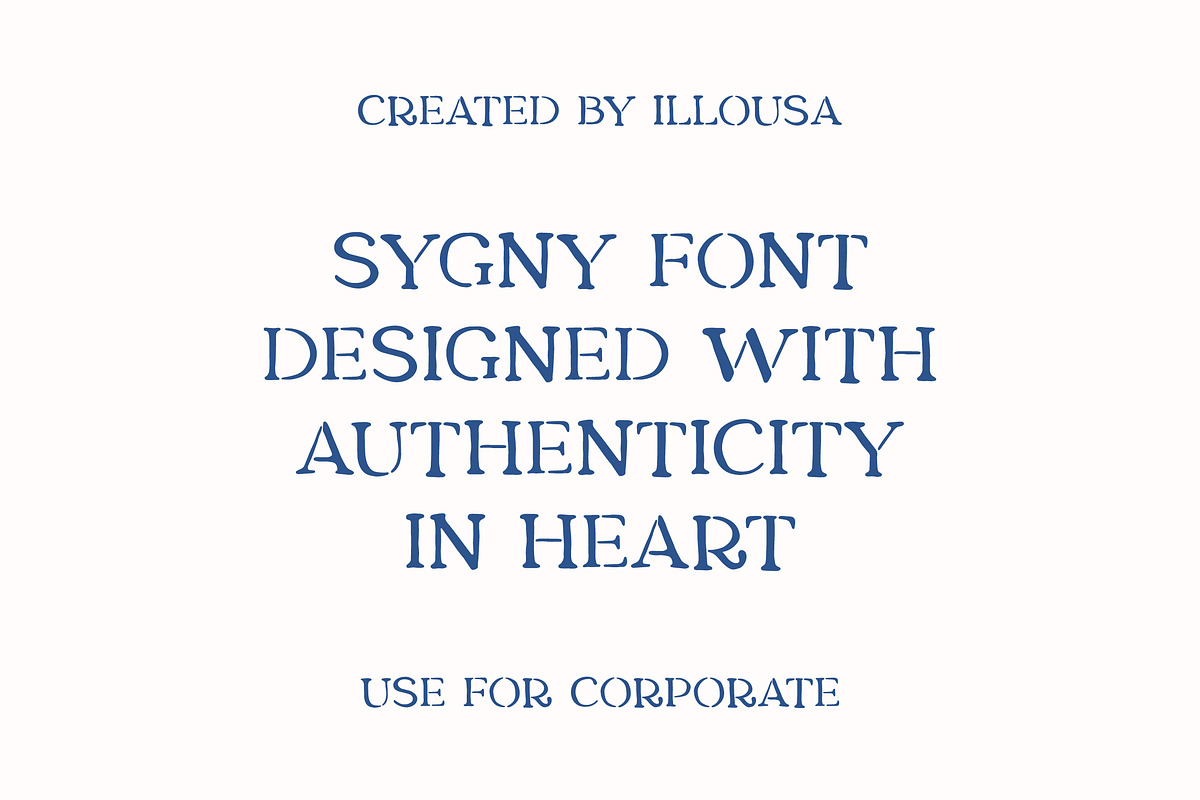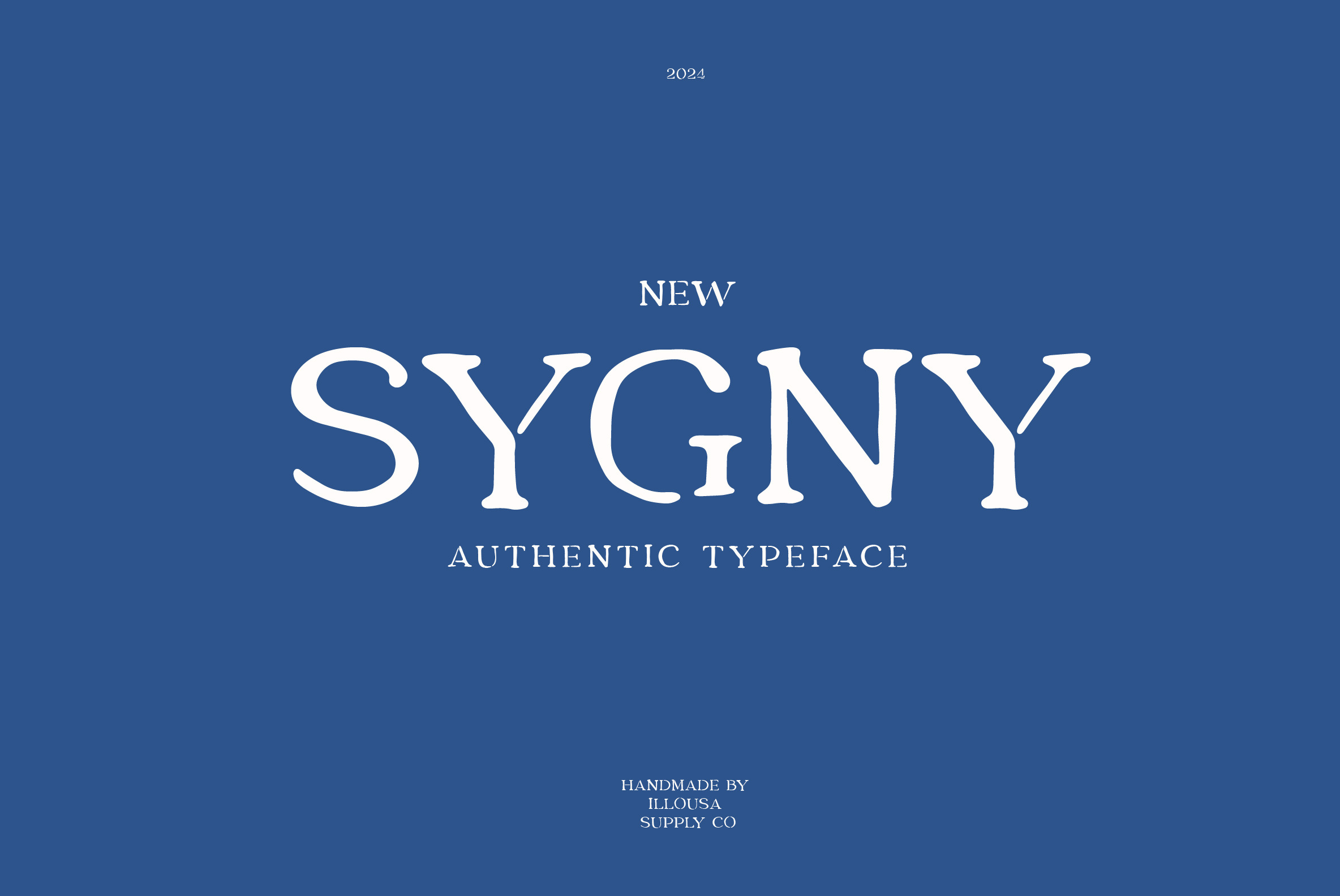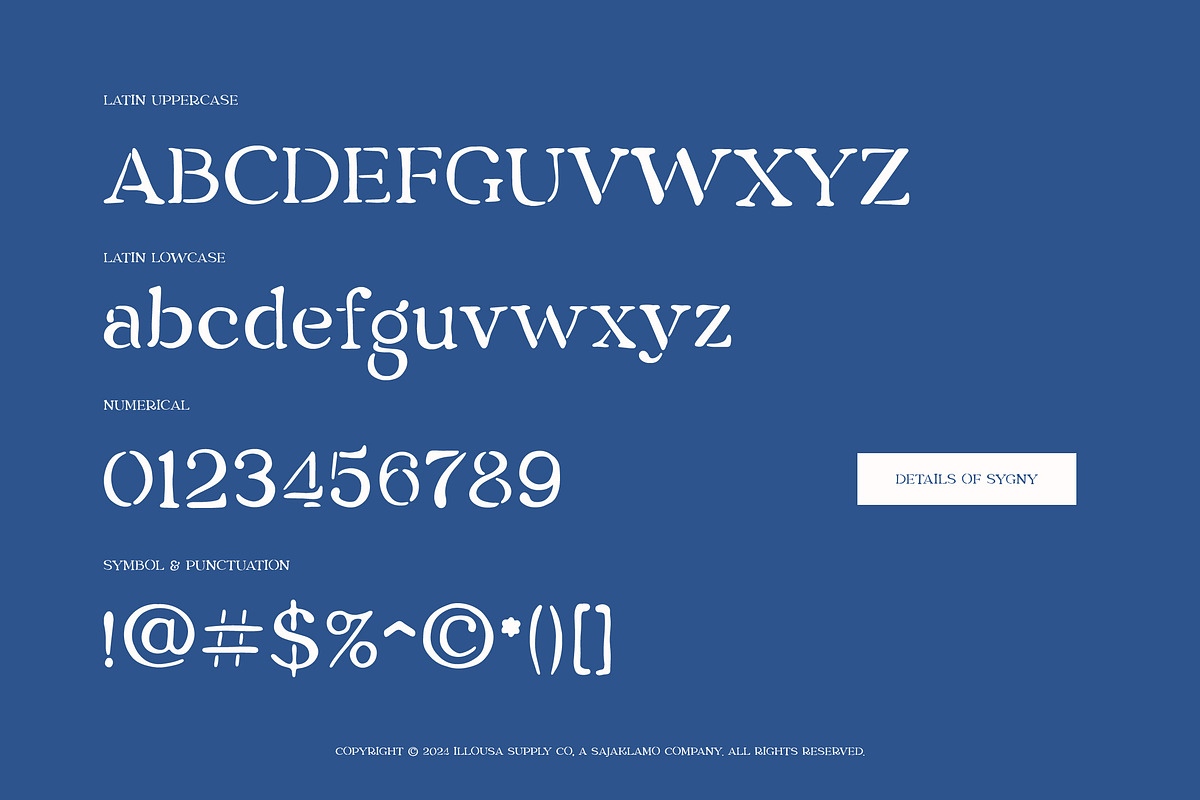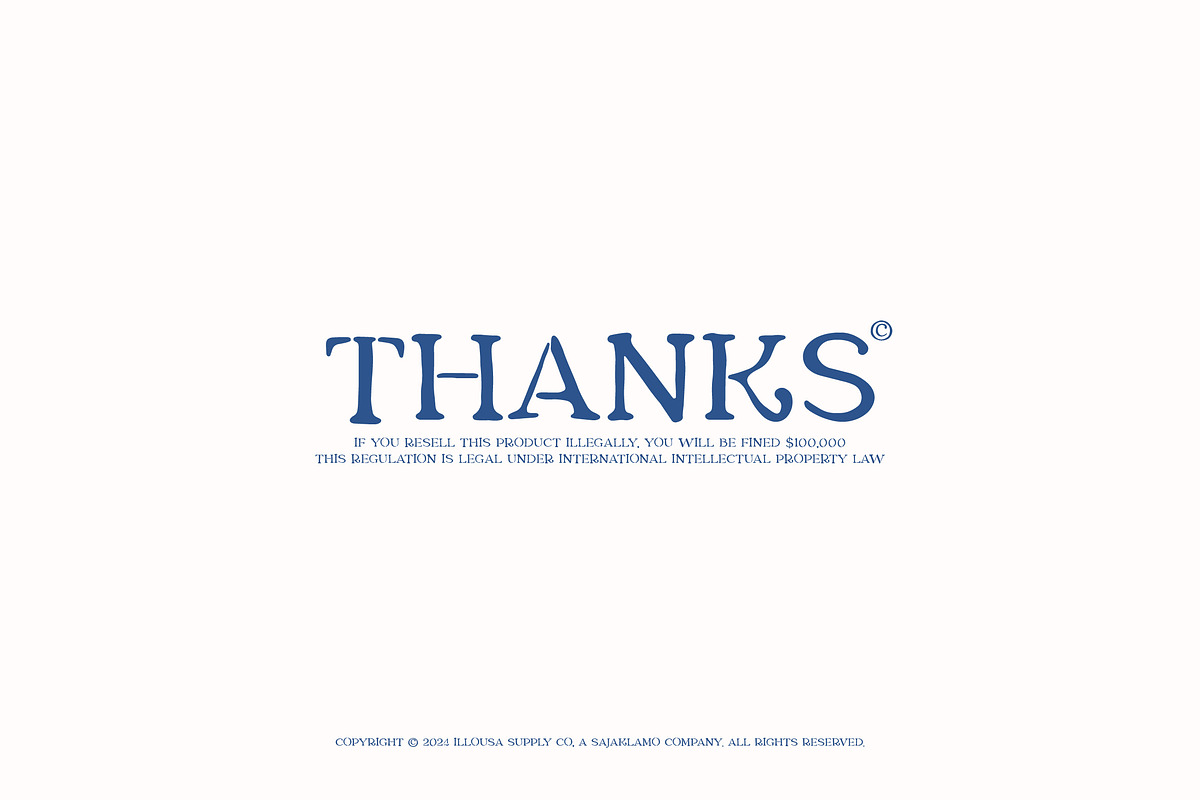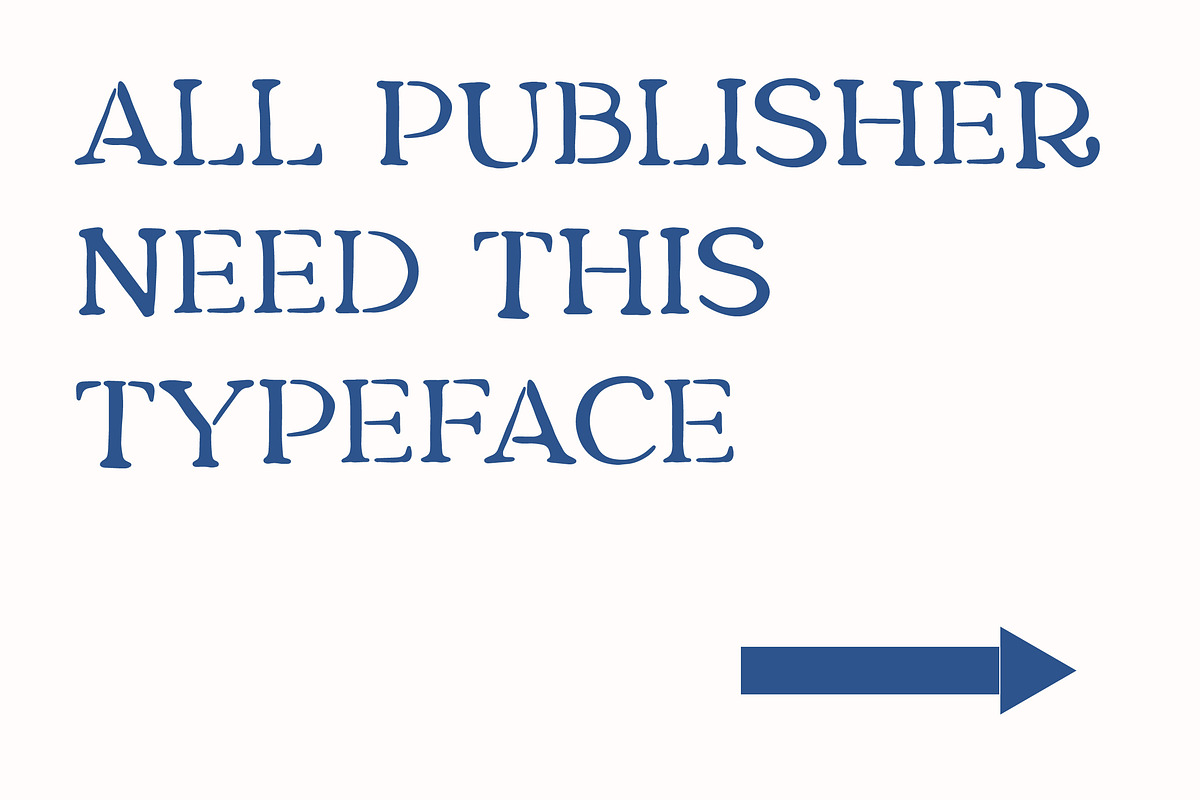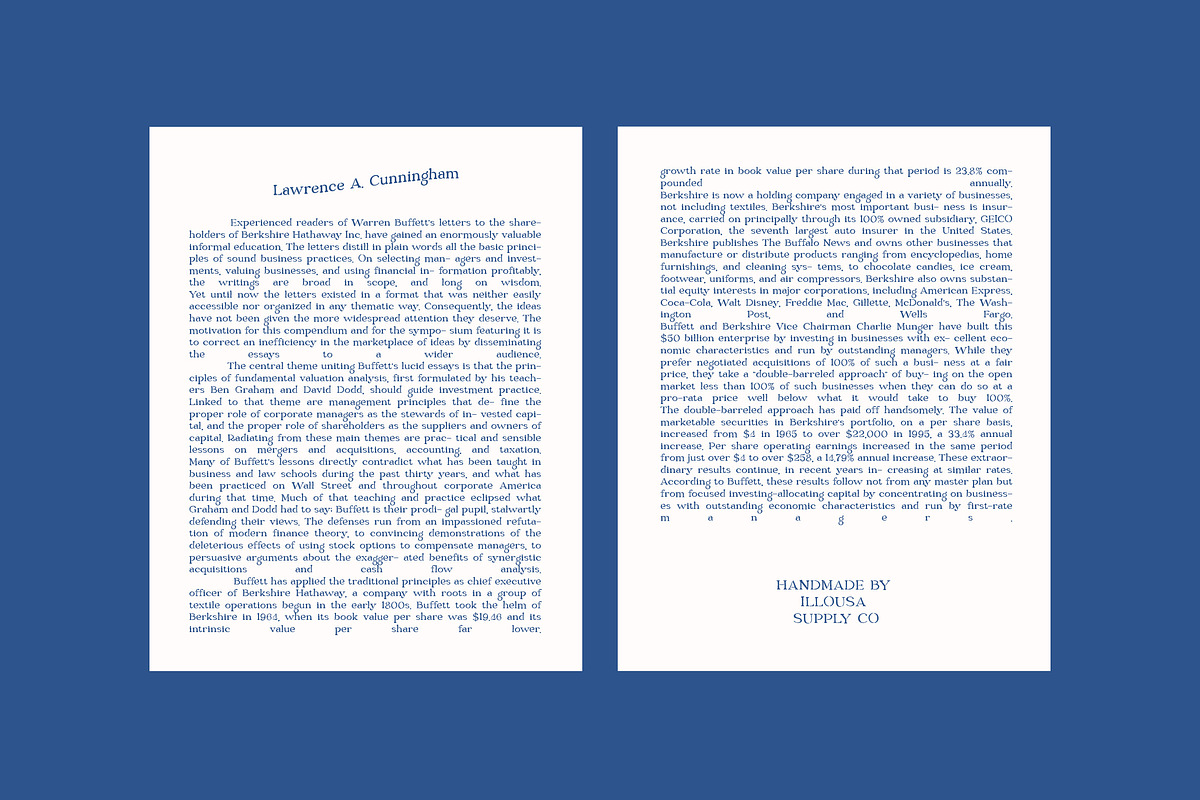
Sygny Serif Typeface
New Release: SYGNY — Authentic Display Typeface
SYGNY is a handcrafted serif font with bold rhythm and quirky curves — made for designers who seek elegance with a punch of personality.
Inspired by classic editorial aesthetics and modern form, SYGNY is perfect for:
- Logo design
- Book covers & magazine titles
- Branding & packaging
- Fashion, art, or lifestyle visuals
🔠 Features:
- All caps
- Punctuation & symbols
Designed by Illousa Supply Co. SYGNY brings timeless expression to modern design.